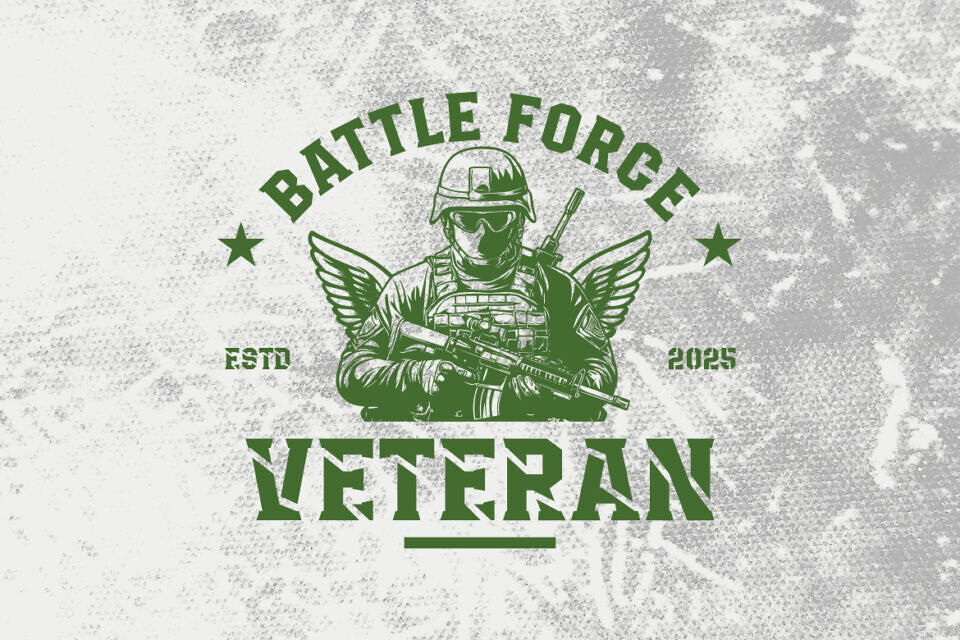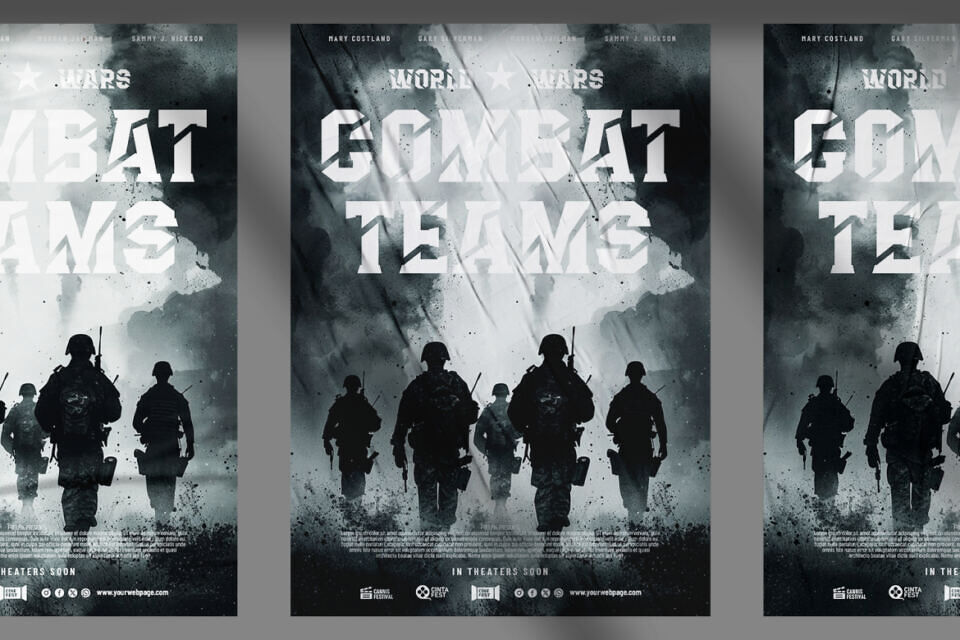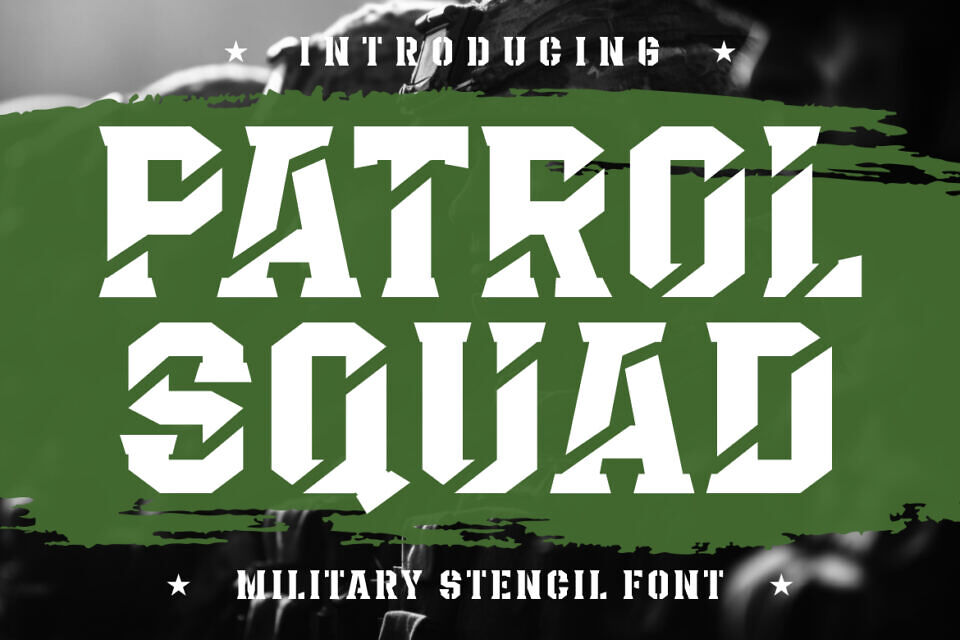
Patrol Squad Font
Patrol Squad is a bold military-style stencil font designed to command attention and amplify your message. Its solid, angular characters and rugged cuts mimic the classic stenciling used on army equipment and tactical gear.
This display typeface blends sharp precision with assertive form, perfect for creating strong branding, impactful posters, powerful film titles, or anything that demands masculine presence. Whether you’re designing military-themed artwork, war movie graphics, or adventure game titles, Patrol Squad brings a field-tested look that’s hard to ignore.